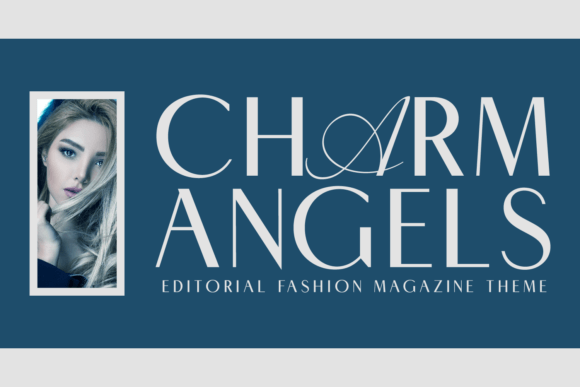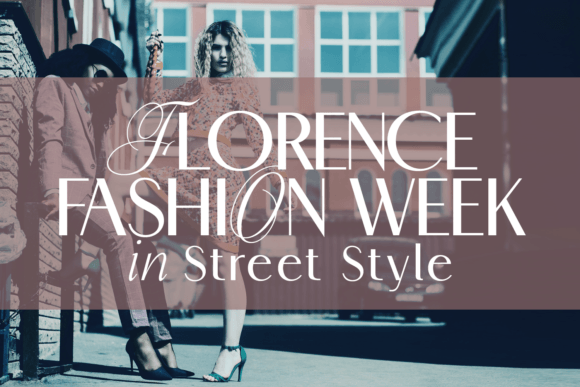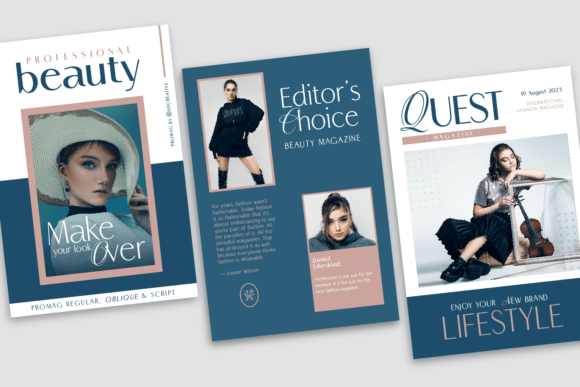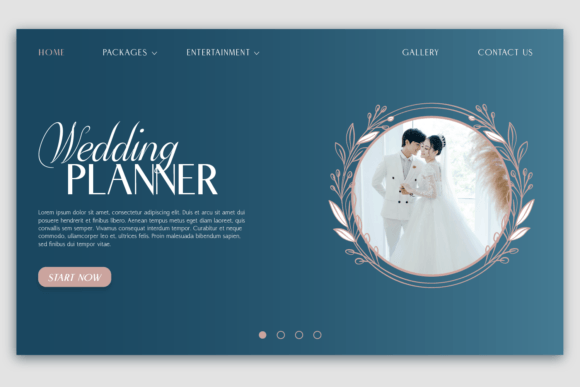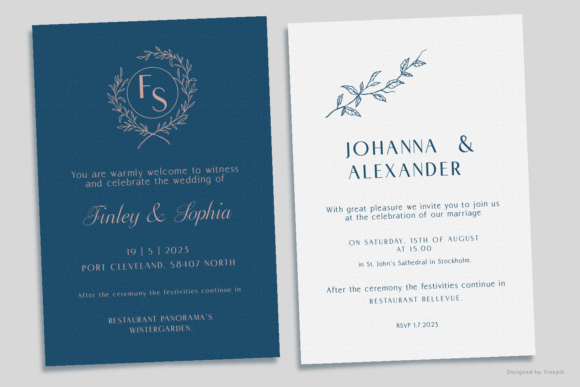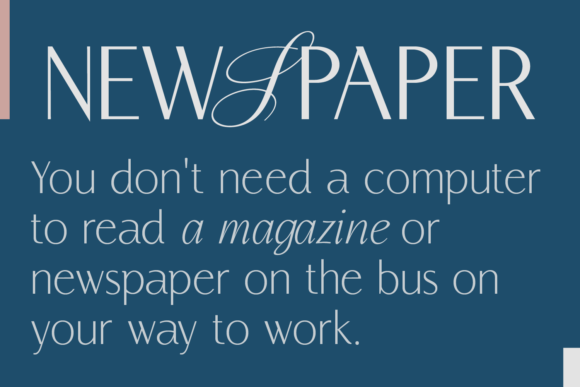
Introduction to Promag Duo Font
Promag is a stylish and elegant font duo (sans serif and script).
Key Features of Promag Duo Font
Why Choose Promag Duo Font?
Promag Duo Font offers exceptional quality and versatility, making it a valuable addition to your design toolkit. Whether you’re creating for personal projects or commercial use, Promag Duo Font delivers professional results.